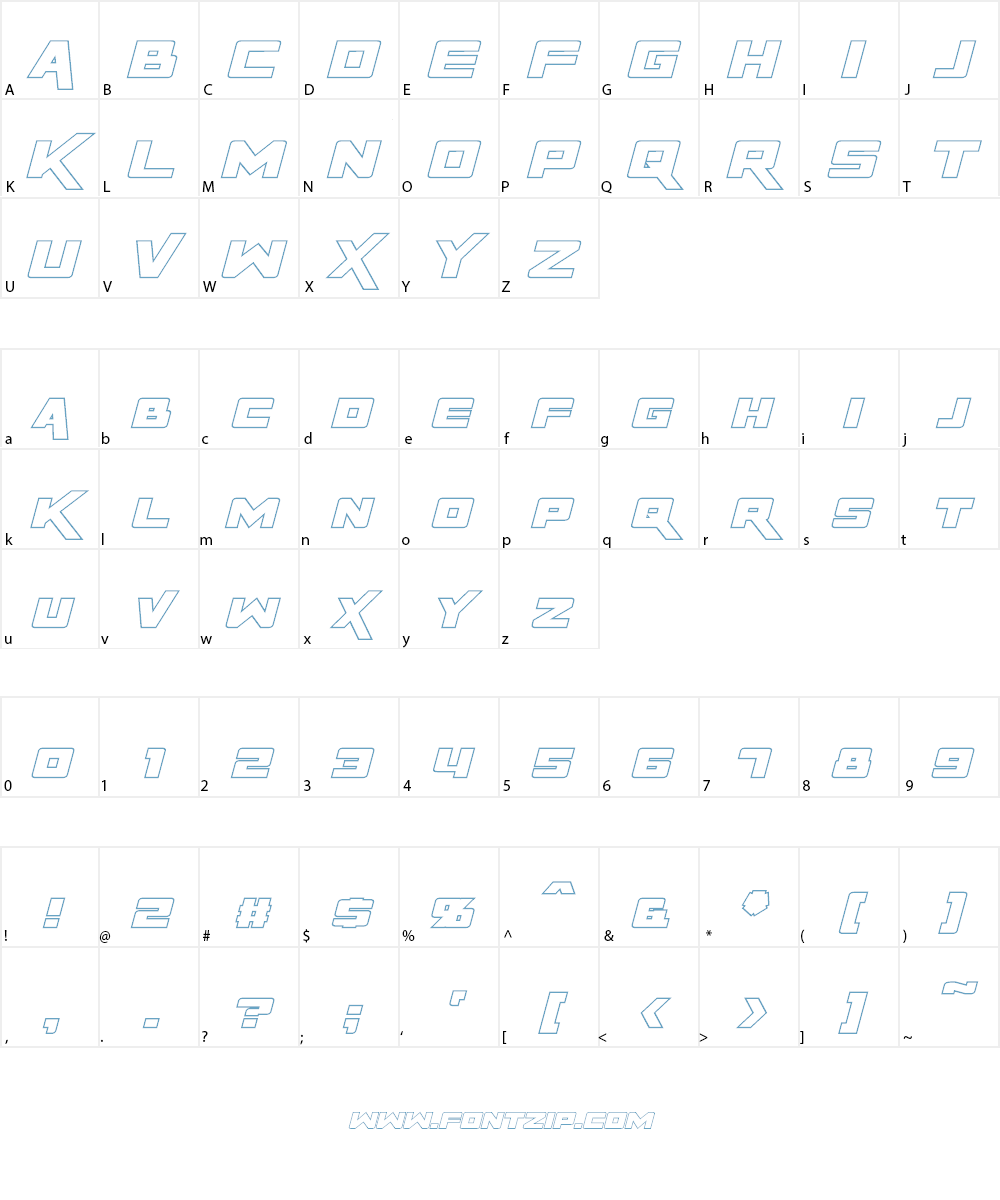
This typeface is a bit of nostalgia, based on the title logo of the very first of R Talsorian's "Mekton" gaming books. Includes full alphabet, extended characters, punctuation, Euro. Includes italic and outline versions.